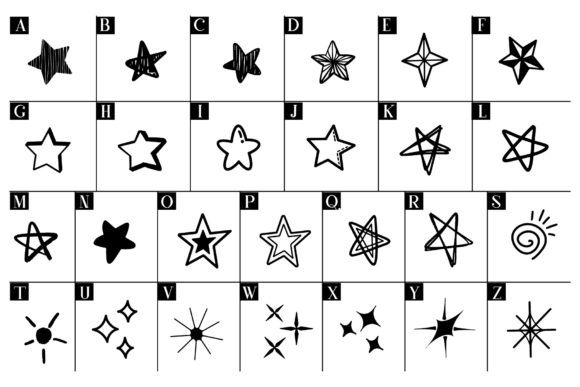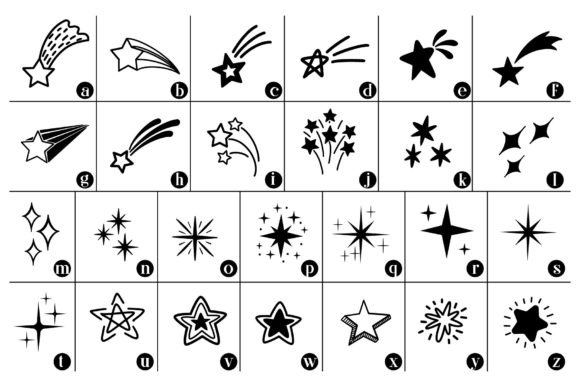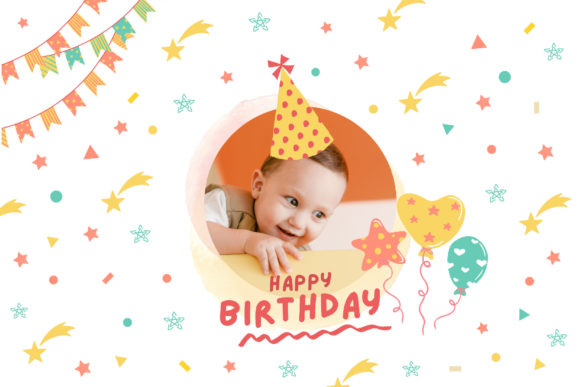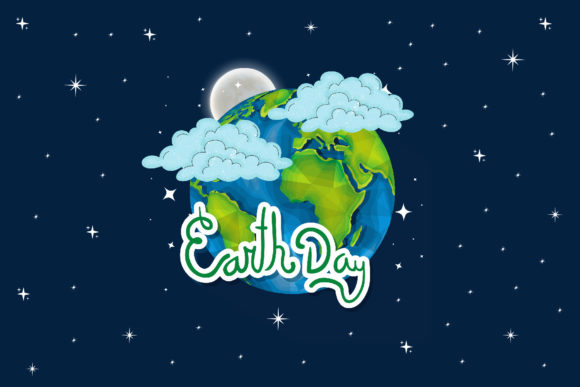
Star Doodle Font
Star Doodle is a dingbats font that’s designed to add a playful, creative touch to a wide variety of projects. The font features a set of doodles and illustrations that can be combined to create images of stars, hearts, and other shapes.
Star Doodle is a great choice for those who want to add a pop of fun and creativity to their designs without using any additional images or graphics. The font includes a wide range of characters, including stars and shapes in different sizes and colors.
Star Doodle can be used for a variety of projects, from invitations to party decorations to digital designs. It’s also perfect for those who want to add a touch of whimsy to their greeting cards or gifts. Overall, Star Doodle is a versatile and fun font that’s perfect for any project that needs a touch of creativity.
Star Doodle features a set of doodles and illustrations that can be combined to create images of stars, hearts, and other shapes. These shapes come in a variety of sizes and colors, making it easy to create a wide variety of designs without having to search for additional images or graphics.
One of the best things about Star Doodle is how versatile it is. The font can be used for a wide range of projects, from invitations to party decorations to digital designs. It’s also perfect for those who want to add a touch of whimsy to their greeting cards or gifts.
Star Doodle is a great choice for those who have a creative side and are looking for a way to let it shine through in their designs. Whether you’re a professional designer, a hobbyist, or just someone who likes to experiment with different styles and techniques, Star Doodle is a great tool to have in your arsenal.